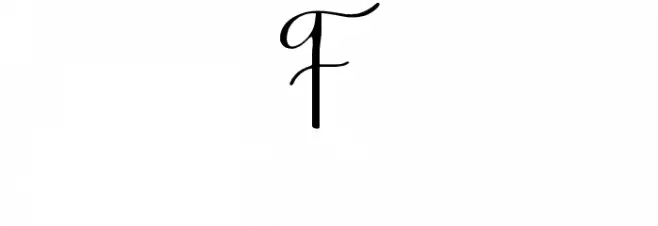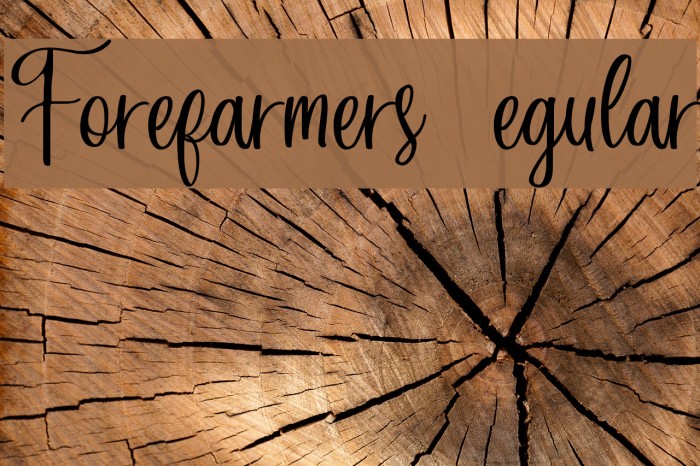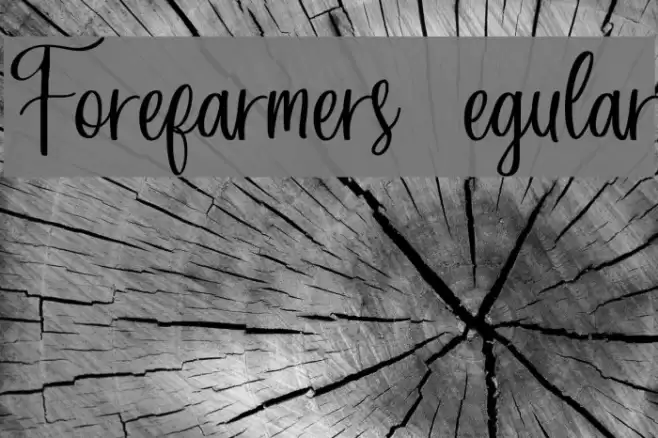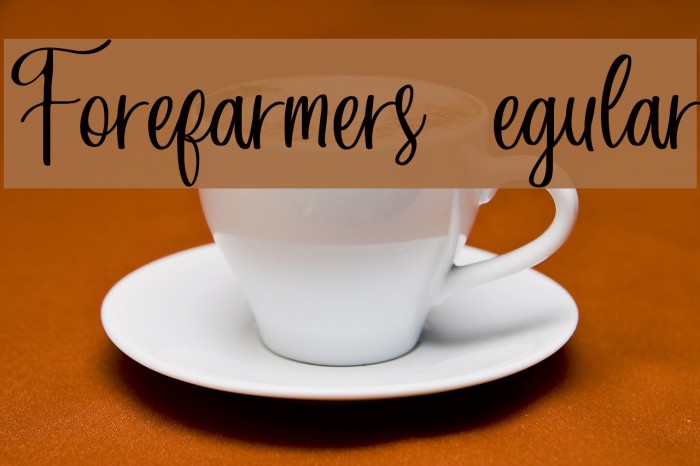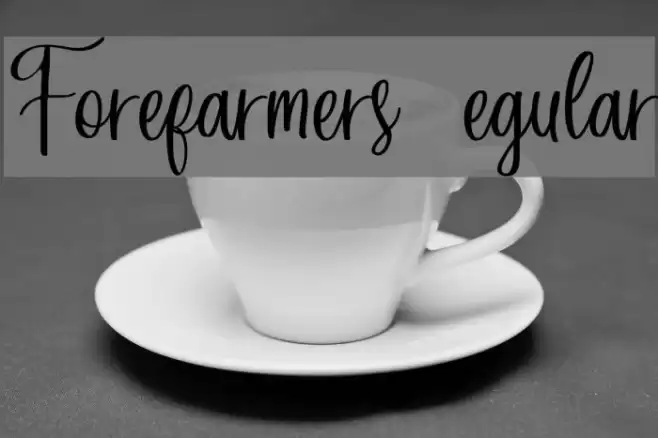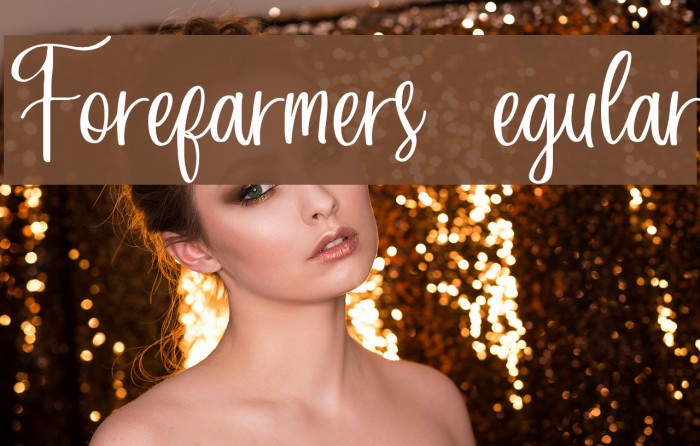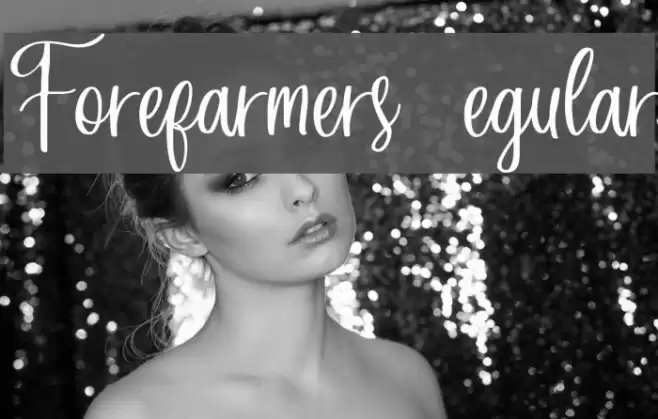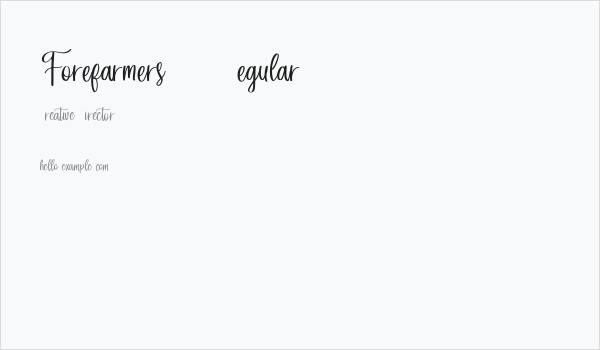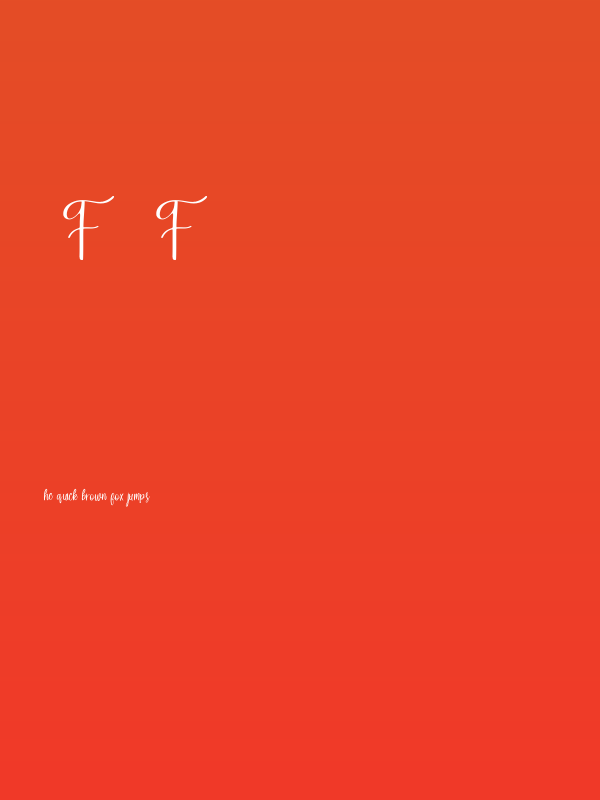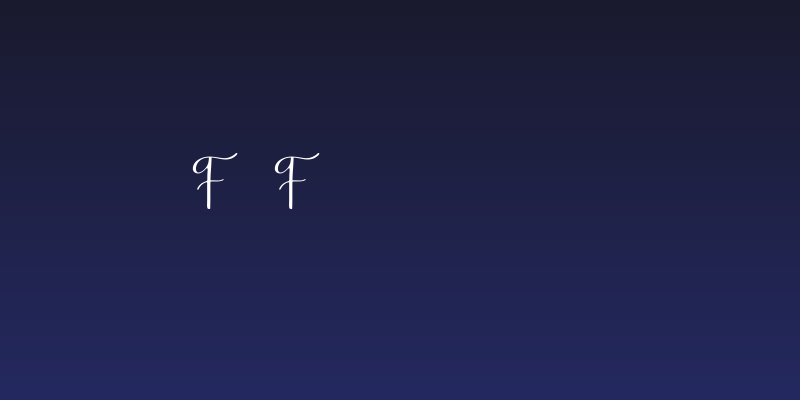
Forefarmers DEMO Regular Font
Forefarmers DEMO Regular Description
This font exudes a sense of elegance and fluidity, characterized by its cursive, handwritten style. The letters are interconnected with smooth, flowing strokes, creating a harmonious and graceful appearance. The uppercase letters are distinct and slightly larger, adding a touch of sophistication. The lowercase letters maintain a consistent flow, enhancing readability while retaining an artistic flair. The overall design is delicate yet impactful, making it suitable for creative and expressive projects.
| Overall Style | Elegant, Artistic |
| Proposed Projects | Ideal for wedding invitations, greeting cards, personal branding, and artistic projects. |